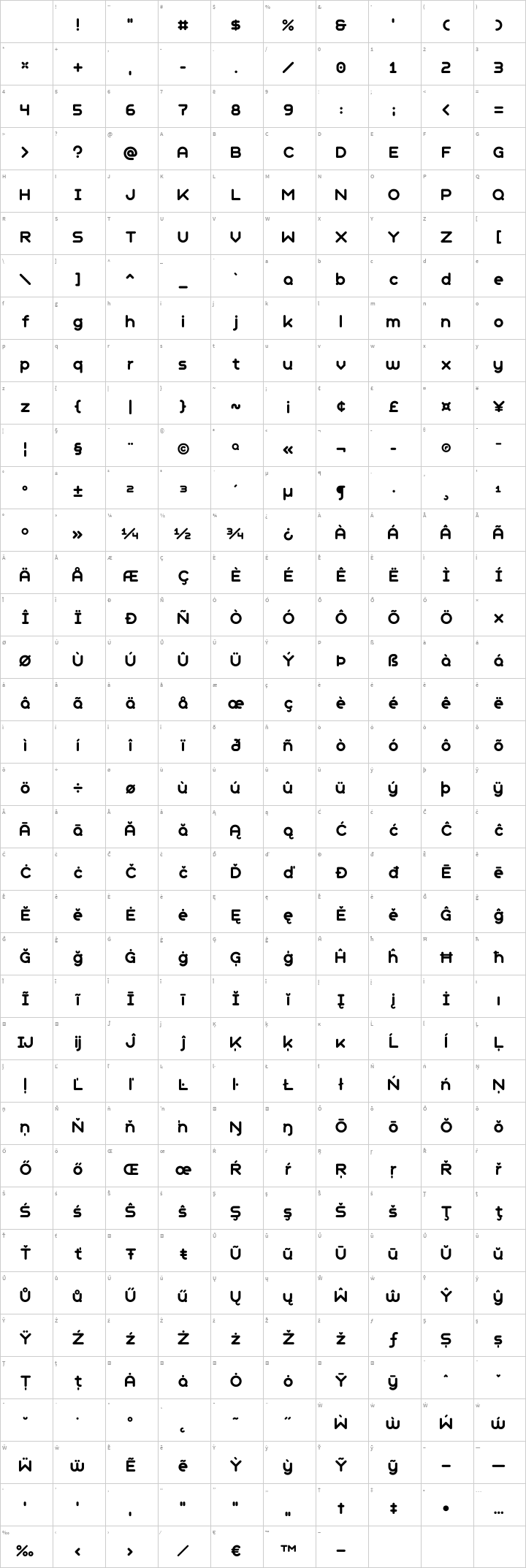
![]() Geometry Soft Pro Bold N | 378 Glyphs |
The “Geometry Pro” family has been designed to be the final word in purely geometric fonts, and this rounded “Soft” sub-family is the ultimate web 2.0 style font collection.
Even though it is strictly geometric (as drawn with a compass and a ruler fixed to 90 and 45 degree angles) it is not slavishly modular: letters have differing widths, and the sidebearings, spacing and kerning has been finely adjusted to create smooth text.